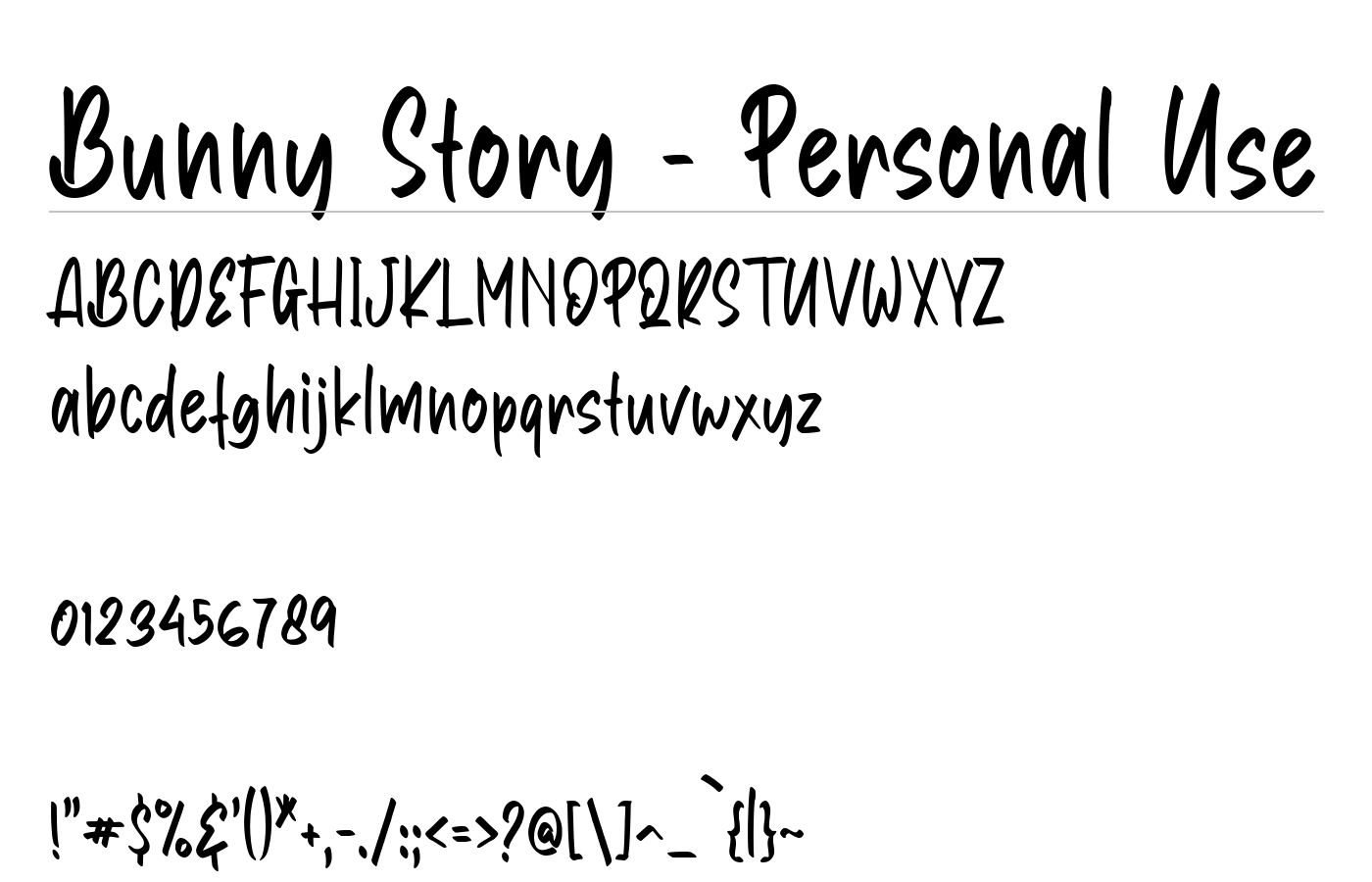
Bunny Story is a playful and casual handwritten font with a friendly, informal feel. Its lively strokes and slightly uneven letterforms give it a charming, personal touch, making it ideal for creative projects, greeting cards, and branding that seeks warmth and approachability. This font works best in headlines, logos, and packaging where a relaxed, fun personality is desired.
Bunny Story - Personal Use Font
| Font family | Bunny Story - Personal Use Font |
| Designer | Sarwo Edhi Prayitno |